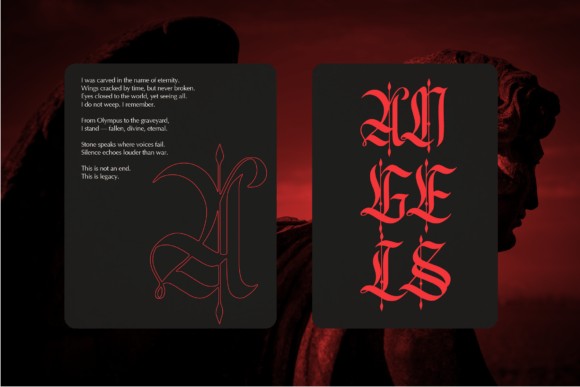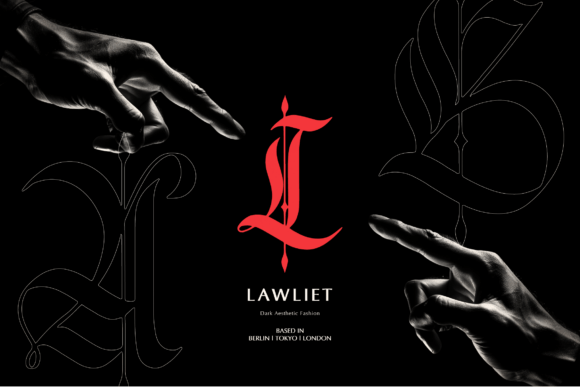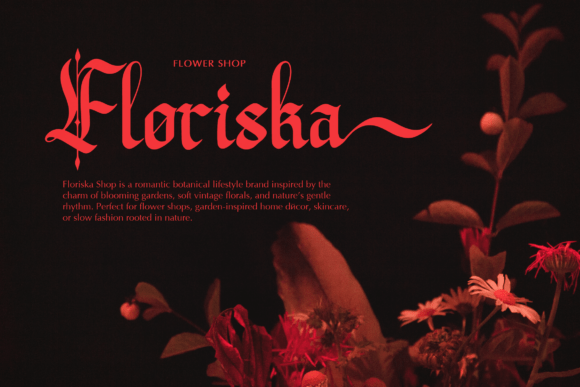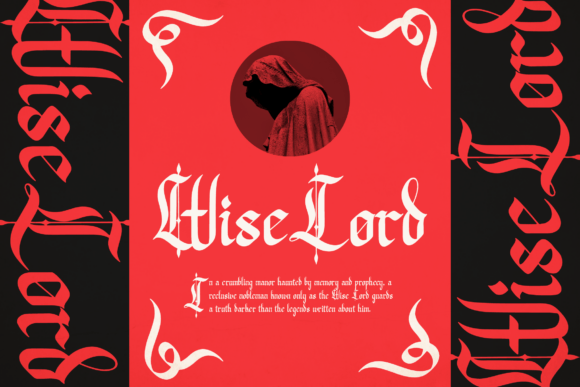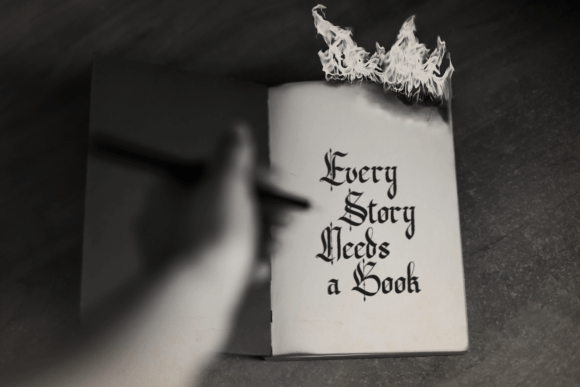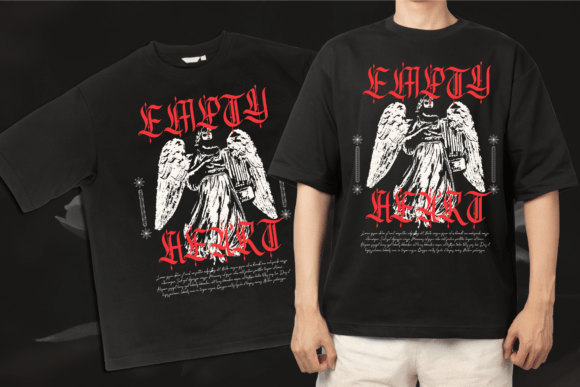
The Perfect Blend of Elegance and Edginess: Better Fields Font
Have you ever found yourself rummaging through your design files, searching for the perfect font to add that extra oomph to your project? I’m sure we’ve all been there. It’s the moment when everything comes together – the colors, the layout, and that one special font that sets it all off. For designers, this moment is a thrill unlike any other, and it’s exactly what Better Fields Font is designed to deliver.
Better Fields Font is a stunning blackletter font that’s perfect for any project that needs a touch of sophistication and elegance. Whether you’re working on logos, branding projects, or even homeware designs, this font is sure to impress. With its unique blend of style and versatility, Better Fields Font is a valuable addition to any designer’s toolkit.
Better Fields Font Key Features
- Unique Characteristics: The font features a unique blend of modern and vintage elements, making it perfect for creating visually appealing designs.
Designer Review: Better Fields Font
Overall, I’m impressed with the Better Fields Font. It has a unique, modern aesthetic that could work well for a variety of projects, from tech companies to fashion brands. ✨ Here are a few strengths that stood out to me:
- The font is highly legible, even at smaller sizes.
- The condensed widths make it perfect for tight spaces or digital interfaces.
- The font is highly customizable, with a wide range of weights and styles to choose from.
However, there are a few limitations to consider. ⚠️ For example:
- The font may not be suitable for projects that require a more traditional or classic look.
- The condensed widths can sometimes make it difficult to read at larger sizes.
- The font may not be compatible with all operating systems or devices.
Overall, I think the Better Fields Font is a solid choice for designers who want a modern, flexible font. While it may not be perfect for every project, it’s definitely worth considering for digital interfaces, tech companies, or brands that want a sleek, contemporary look.
Better Fields Font is ideal for:
- Creating eye-catching headlines and titles.
- Designing professional-looking presentations and reports.
- Developing engaging social media graphics and ads.
Alternatives to Better Fields Font
Open Sans is a clean and modern sans-serif font. It is highly legible and works well in digital environments. Use Open Sans for body text and headings in applications, websites, and mobile apps. It is similar to Better Fields Font in its clean and modern design, but it has a more neutral tone and is more versatile in its applications.
Lato is a sans-serif font with a strong and modern feel. It is highly customizable and works well in a variety of applications, from body text to headings. Use Lato for projects that require a strong and modern feel, such as corporate websites, mobile apps, and digital products. Lato is similar to Better Fields Font in its modern design, but it has a stronger and more dramatic feel.